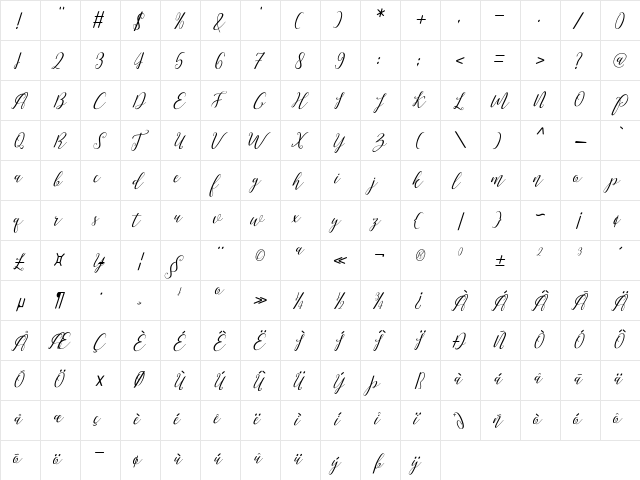
love malia art design
Design Context for love malia Typeface
love malia is a composed and adaptable typeface that performs quietly and consistently across a wide range of design contexts.